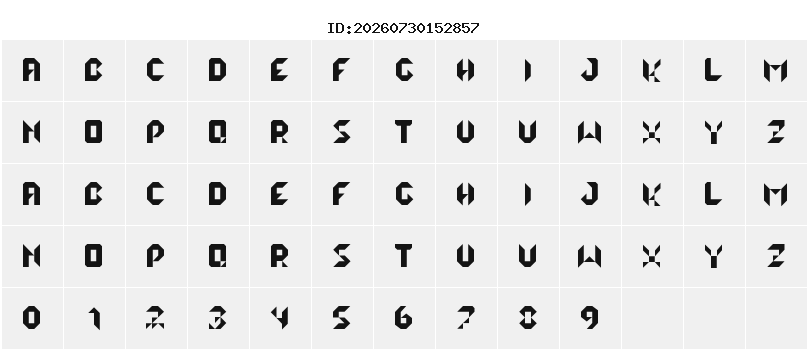
lalek Preview
• Font Name: lalek
• Designer: hertoy
About lalek.ttf
lalek.ttf is a modern, elegant sans-serif font designed for ultimate readability and visual harmony. Perfect for branding, headlines, web design, and print materials.